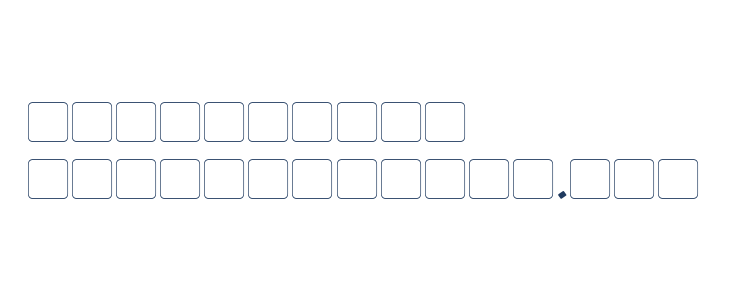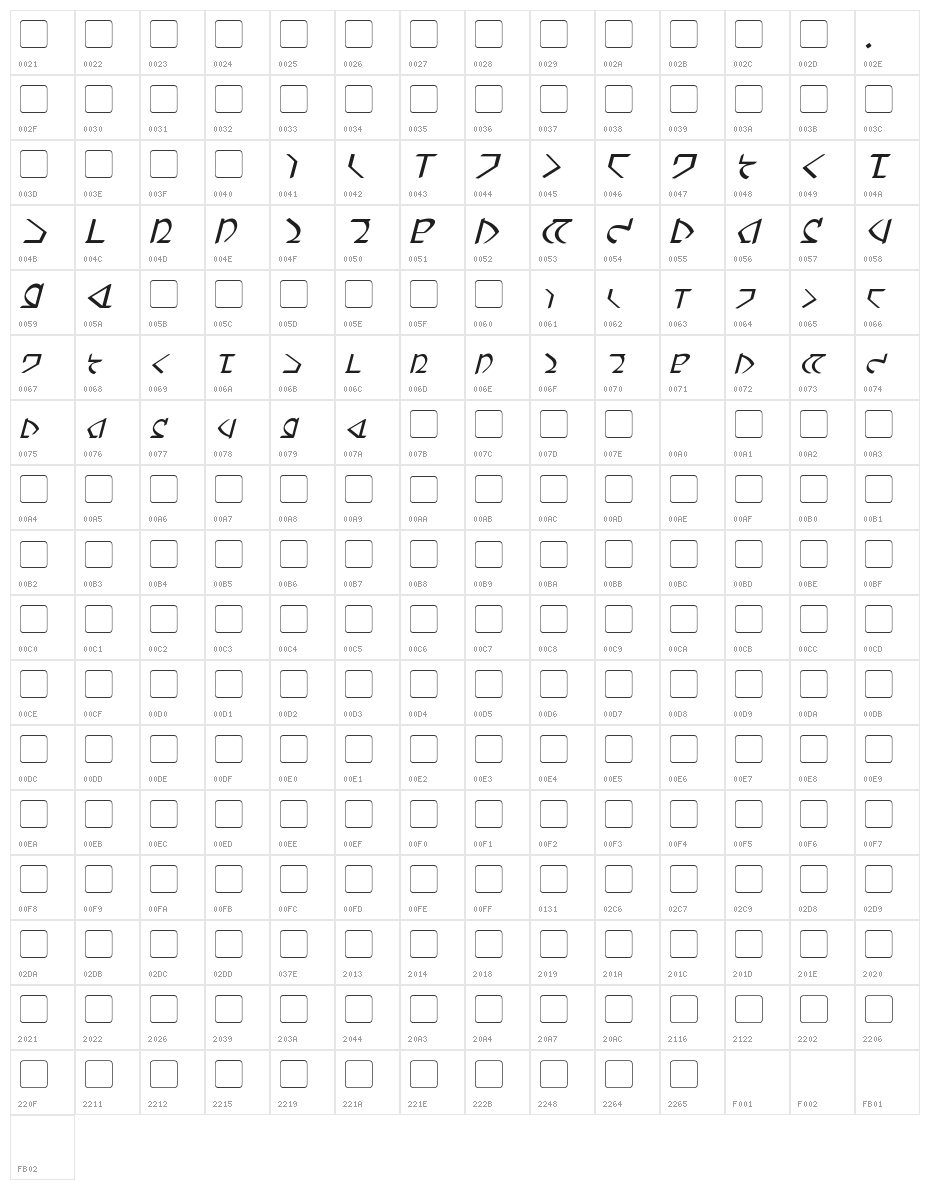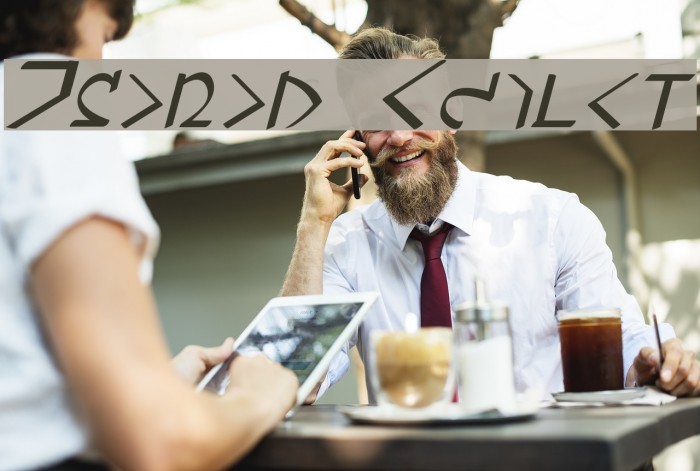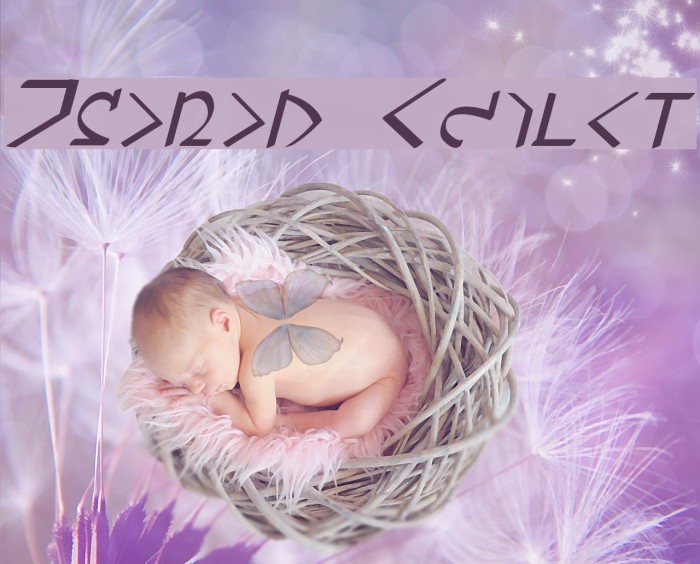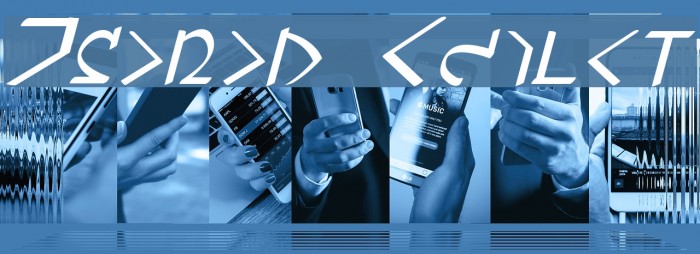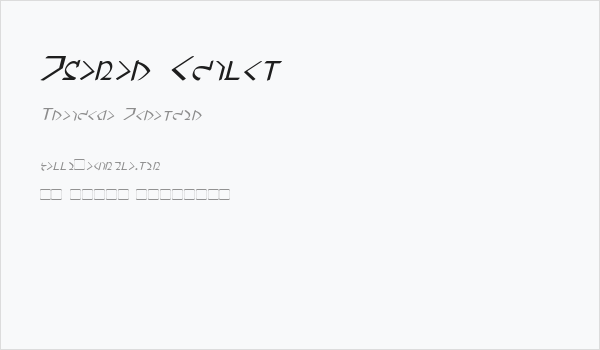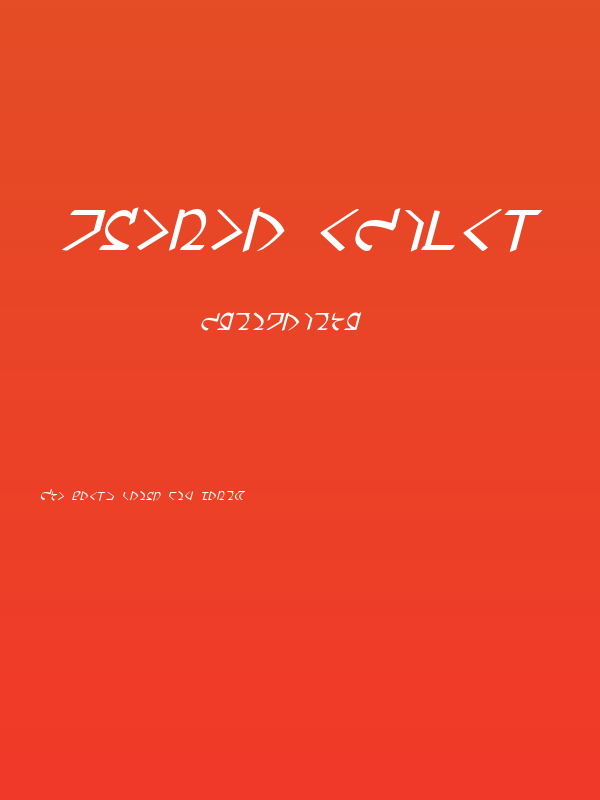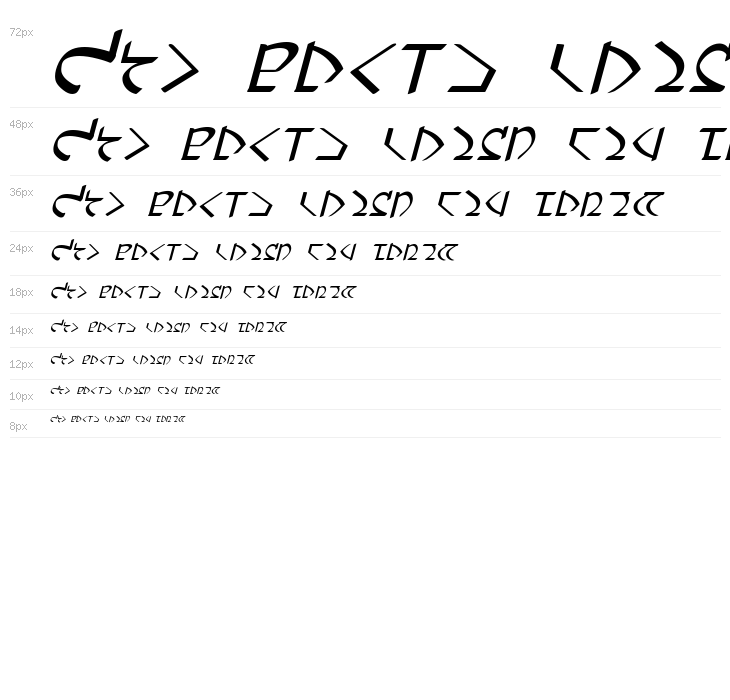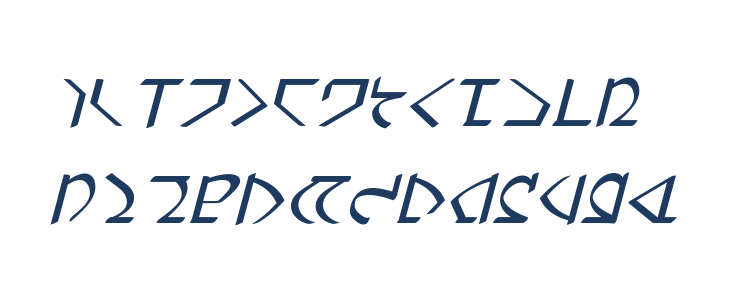
Dwemer Italic Font
Dwemer Italic Description
This font features a unique, angular design that evokes a sense of ancient or mystical script. The characters are sharply defined with a distinct slant, giving them an italicized appearance. The strokes are bold and consistent, contributing to a strong visual impact. Each letter is crafted with a geometric precision that suggests a blend of futuristic and archaic styles. The font lacks traditional curves, opting instead for straight lines and sharp angles, which enhances its distinctive, otherworldly aesthetic.
| Use Case | Logos, Headlines, Themed designs |
| Proposed Projects | Ideal for fantasy-themed projects, video game interfaces, or any design requiring an ancient or mystical aesthetic. |